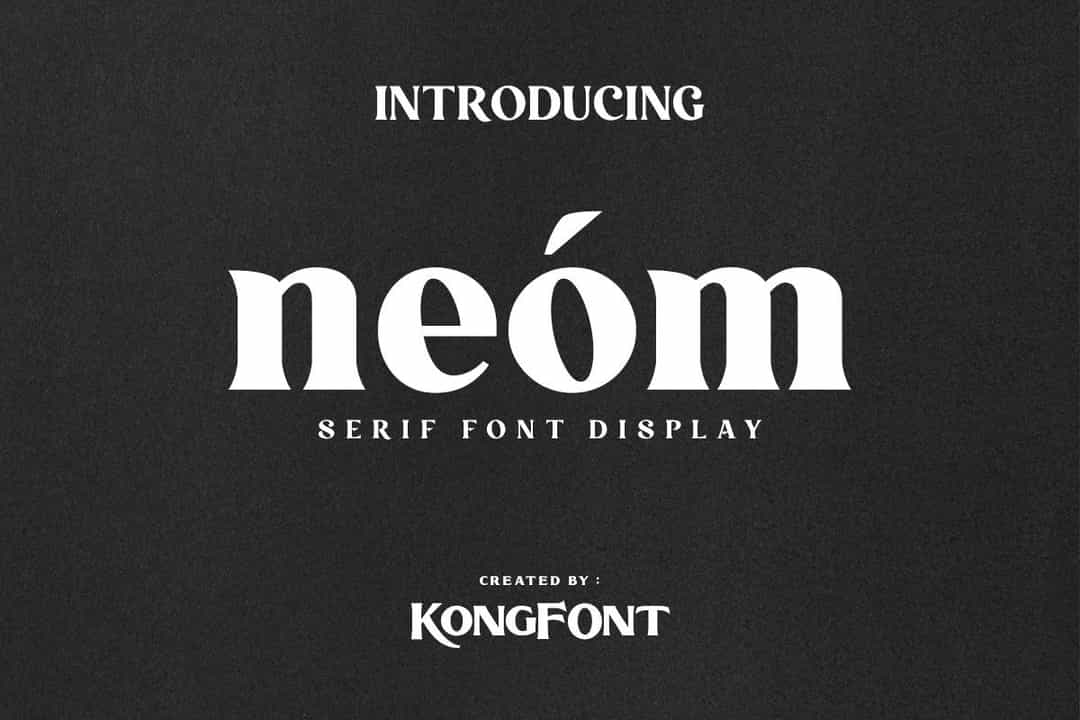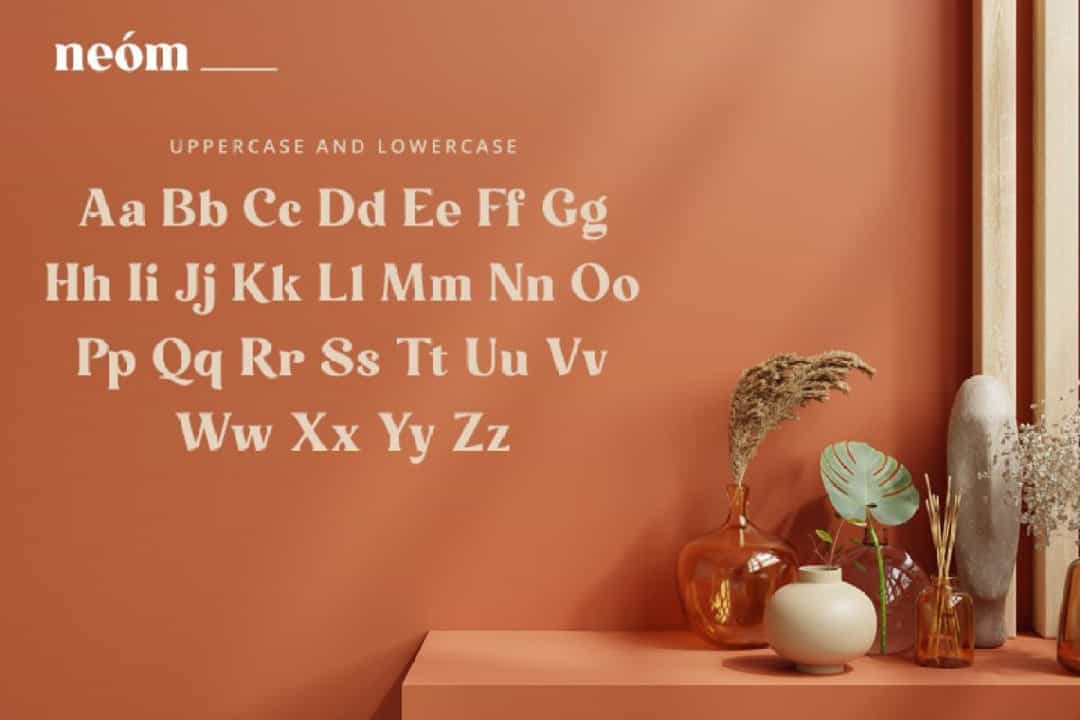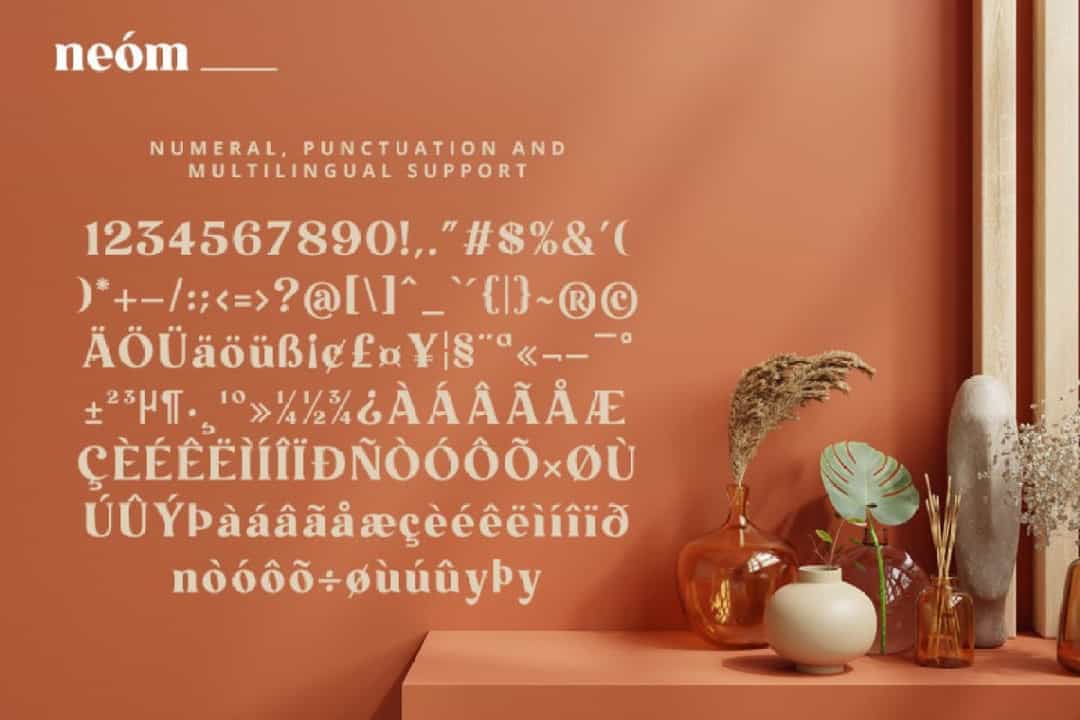
Neom is an eye-catching screen serif typeface that makes an immediate and striking statement. This friendly yet flexible and stylish typeface is great for logos, movie titles or headlines and should make a big impactful statement about its content.